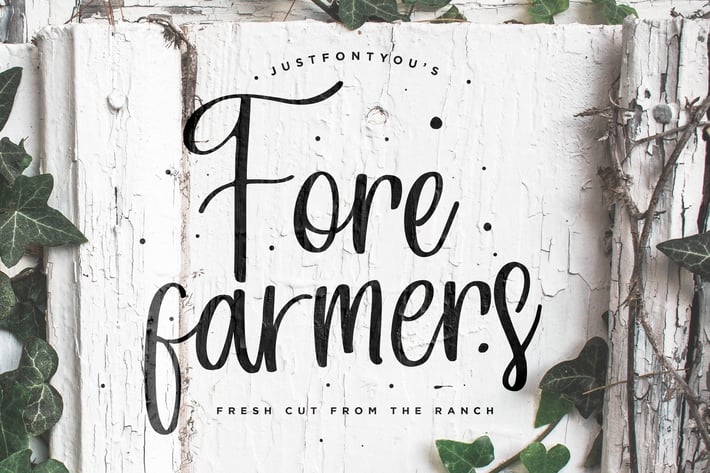
Forefarmers - Rustic Casual Vintage Font
Forefarmers, A rustic farmhouse script hand lettering font. Inspired by the farmers market signs and those rustic vintage events nowadays. Perfectly fit for vintage wedding concept, logo, branding, farmers market event, flea market, casual handmade stuff, poster quotes, feminine stuff, cosmetic branding, etc.
Included Uppercase, Lowercase, Numbers & Punctuations, Multilanguage Support, Stylistic Alternates for every lowercase letters, and double letter ligatures to aim the seamlessly handwriting feels.